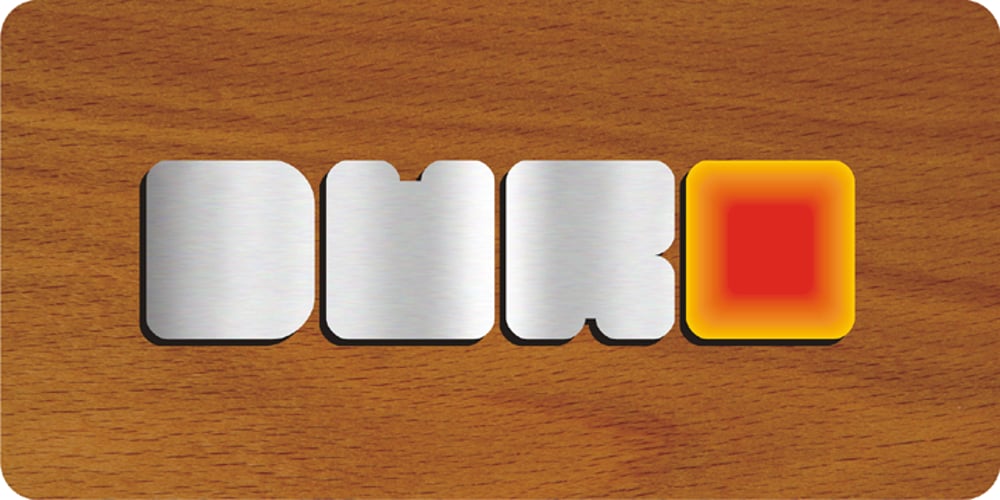
Duro Font Family was designed by Joey Stephen Maul and published by Joey Maul. Duro contains 8 styles and family package options. Duro was inspired by the shape of today’s common electronic devices such as mp3 players and cell phones. The smooth shapes work nicely with branding. Duro features bold rounded-corner rectangular shapes. The Outline version aligns perfectly with the Regular version. Duro is best used as a headline font with UPPERCASE. It is great for logotypes, shorter words, kids’ stuff, acronyms or initials with upper and lowercase, and perfect for filling with photos, textures, etc.